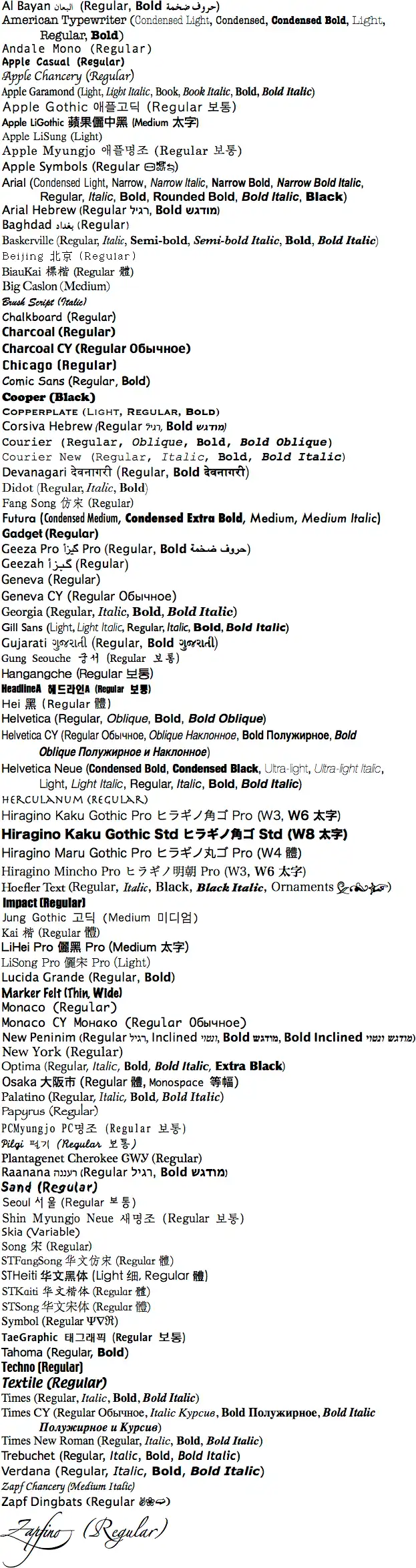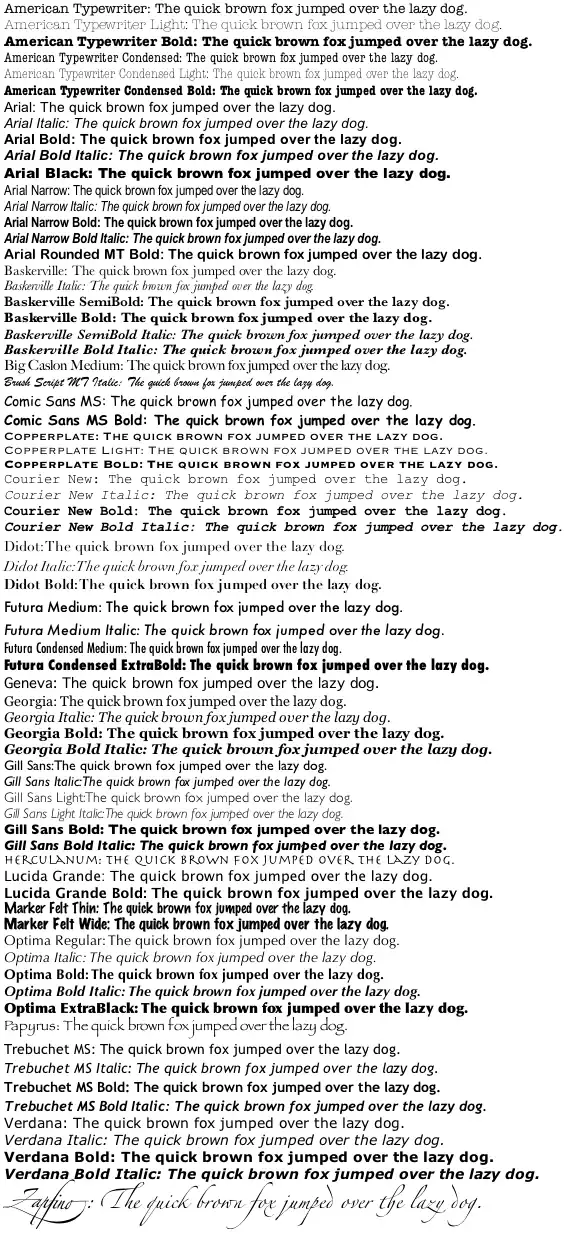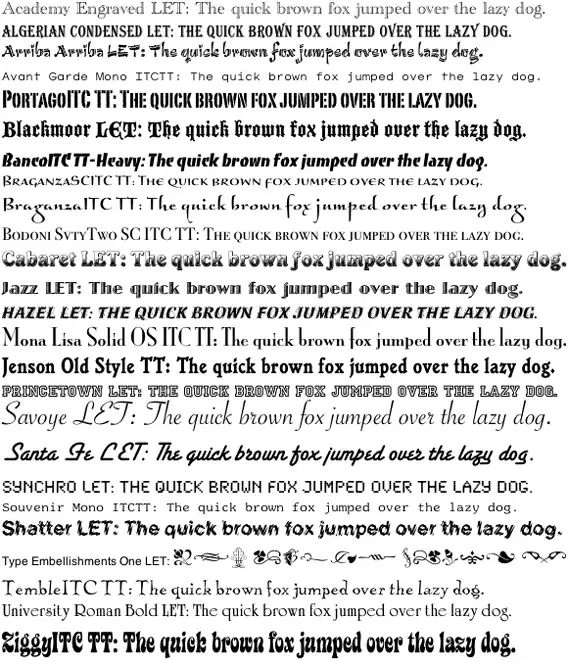
List of typefaces included with macOS
This list of fonts contains every font shipped with Mac OS X 10.0 through macOS 10.14, including any that shipped with language-specific updates from Apple (primarily Korean and Chinese fonts). For fonts shipped only with Mac OS X 10.5, please see Apple's documentation.
Notes on subtype classification:
- Some scripts have typographical traditions with relatively simple mapping to Western sans-serif/serif/script classification. These mapped classifications are provided too. More specifically:
- For Cyrillic and Greek, classification proceeds as in Latin.
- For CJK, East Asian Gothic typefaces are classified as sans-serif, Ming/Song/Batang and Fangsong as serif, and handwritten styles such as Kai as "script".
- Non-Latin fonts generally contain both characters in the intended script and a small set of Latin characters. The two parts may differ in style and classification, hence the "with sans/sans-serif Latin part" indication.
System fonts up to Mac OS X 10.7
| Family Name | Subtype | Styles Available | Target script and other notes |
|---|---|---|---|
| Al Bayan | non-Latin with sans Latin | Regular, Bold | Arabic |
| American Typewriter | slab serif, book | Condensed Light, Condensed, Condensed Bold, Light, Regular, Bold | |
| Andalé Mono | sans-serif, mono, book | Regular, Bold | |
| Apple Casual | display | Regular | Hidden, see below |
| Apple Chancery | script | Regular | |
| Apple Garamond | serif, book | Light, Light Italic, Book, Book Italic, Bold, Bold Italic | Hidden, see below |
| Apple Gothic | Regular | Korean | |
| Apple LiGothic | non-Latin sans-serif | Medium | Traditional Chinese |
| Apple LiSung | non-Latin serif | Light | Traditional Chinese |
| Apple Myungjo | non-Latin serif | Regular | Korean |
| Apple Symbols | picture | Regular | |
| AquaKana | Regular | Japanese, Not depicted below | |
| Arial | sans-serif, book | Condensed Light, Narrow, Narrow Italic, Narrow Bold, Narrow Bold Italic, Regular, Italic, Bold, Rounded Bold, Bold Italic, Black | Bundled with Microsoft Windows (except for Arial Condensed Light is not bundled with Windows.) |
| Arial Hebrew | non-Latin | Regular, Bold | Hebrew |
| Ayuthaya | non-Latin | Regular | Thai; not depicted below |
| Baghdad | non-Latin | Regular | Arabic |
| Bank Script | script | Regular | |
| Baskerville | serif, book | Regular, Italic, Semi-bold, Semi-bold Italic, Bold, Bold Italic | |
| Beijing | serif non-Latin with mono-serif Latin part | Regular | Simplified Chinese; bitmap only |
| BiauKai | script non-Latin with serif Latin part | Regular | Traditional Chinese; missing in Yosemite and El Capitan until Sierra. |
| Big Caslon | serif, book | Medium | |
| Browallia New | non-Latin | Regular, Italic, Bold, Bold Italic | Thai, Bundled with Microsoft Windows |
| BrowalliaUPC | non-Latin | Regular, Italic, Bold, Bold Italic | Thai, Bundled with Microsoft Windows |
| Brush Script | script | Italic | |
| Candara | sans-serif, book | Regular, Italic, Bold, Bold Italic | Bundled with Microsoft Windows |
| Chalkboard | semi-bold | Regular, Bold | Bold added in 10.4; Bold not depicted below |
| Chalkduster | bold | Regular | added in 10.6; not depicted below |
| Charcoal | Regular | Classic only | |
| Charcoal CY | non-Latin | Regular | Cyrillic |
| Chicago | sans, book | Regular | Classic only, see Krungthep below |
| Cochin | serif, book | Regular, Italic, Bold, Bold Italic | |
| Comic Sans | casual | Regular, Bold | Bundled with Microsoft Windows |
| Consolas | sans-serif, mono | Regular, Italic, Bold, Italic | Bundled with Microsoft Windows |
| Cooper | extra-bold | Black | |
| Copperplate | serif, title, small caps | Light, Regular, Bold | |
| Corsiva Hebrew | non-Latin | Regular | Hebrew |
| Courier | slab serif mono, book | Regular, Oblique, Bold, Bold Oblique | |
| Courier New | slab serif mono, book | Regular, Italic, Bold, Bold Italic | Bundled with Microsoft Windows |
| DecoType Naskh | non-Latin | Regular | Naskh Arabic; not depicted below |
| Devanagari | non-Latin sans-serif | Regular, Bold | Devanagari |
| Didot | serif, book | Regular, Italic, Bold | |
| Euphemia UCAS | sans-serif, book | Regular, Italic, Bold | Canadian Syllabics; not depicted below |
| Futura | sans-serif, book | Condensed Medium, Condensed Extra Bold, Medium, Medium Italic | |
| Gadget | sans-serif, title | Regular | Classic only |
| Geeza Pro | non-Latin with sans-serif Latin part | Regular, Bold | Arabic |
| Geezah | non-Latin with sans-serif Latin part | Regular | Arabic |
| Geneva | sans-serif, book | Regular, Bold | |
| Geneva CY | non-Latin | Regular | Cyrillic |
| Georgia | serif, book | Regular, Italic, Bold, Bold Italic | Bundled with Windows |
| Gill Sans | sans-serif, book | Light, Light Italic, Regular, Italic, Bold, Bold Italic | |